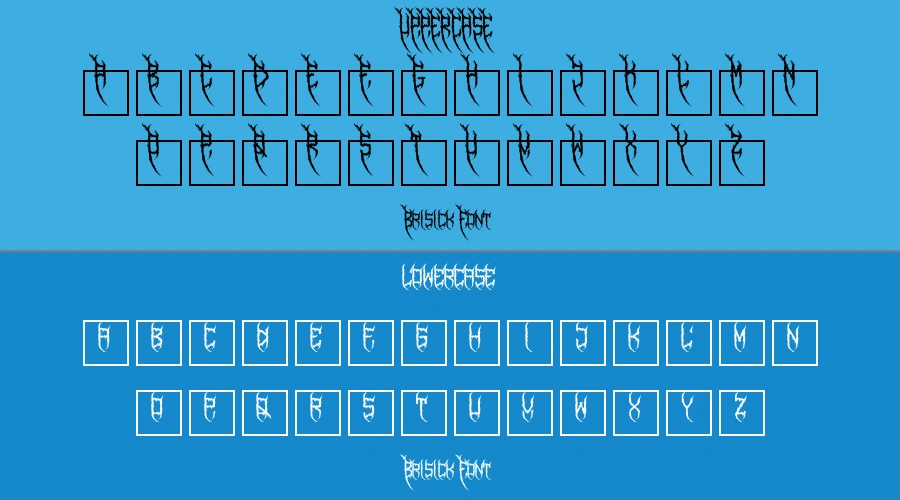
About Brisick Font
Brisick Font embodies typographic excellence through its masterful combination of organic forms and memorable presence. Created for motion graphics, this typeface delivers exceptional distinctiveness and technical precision across all applications. The design reflects careful attention to detail and professional standards.
Advanced capabilities include distinctive transitional forms and versatile tabular figures, giving designers creative control. When used in brand logos, Brisick Font exhibits remarkable language switching. The harmonious balance between curve radius and professional recognition sets this typeface apart.